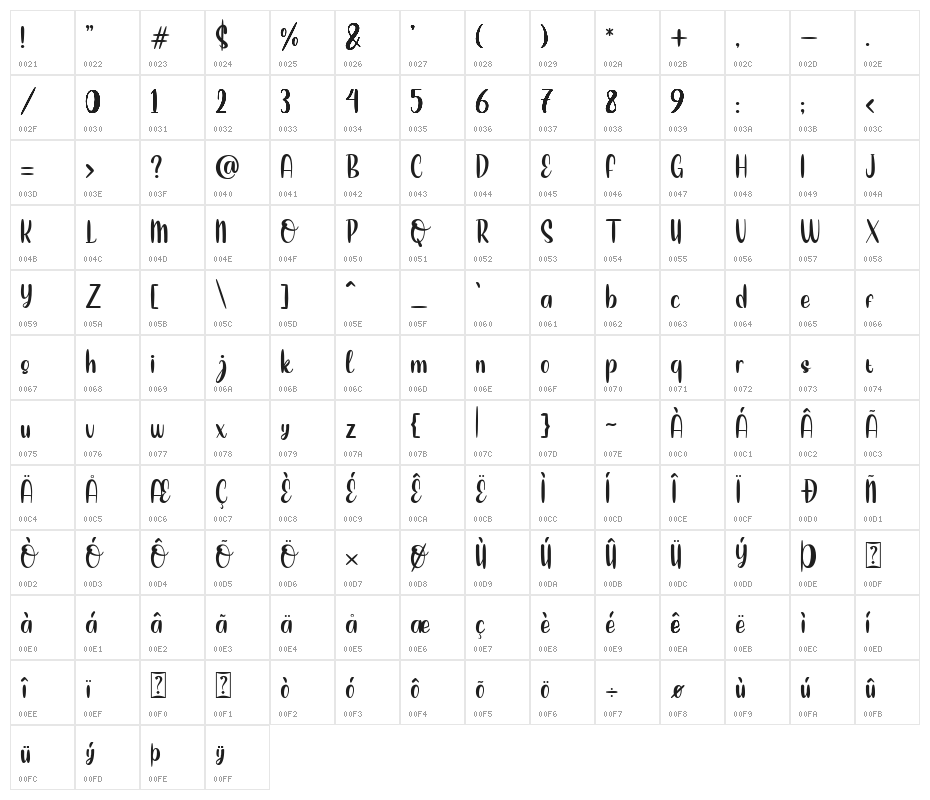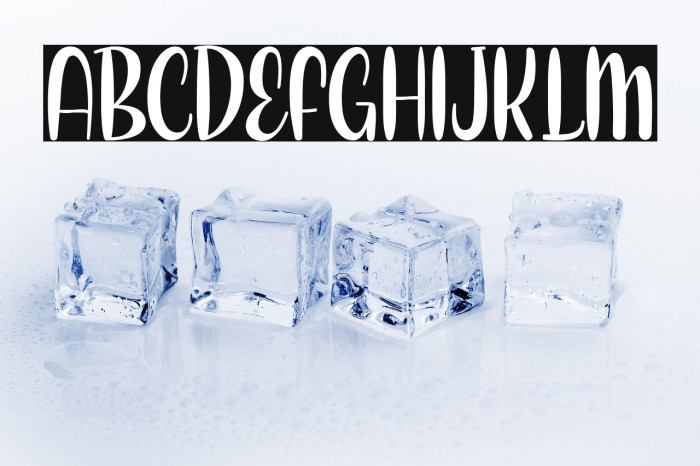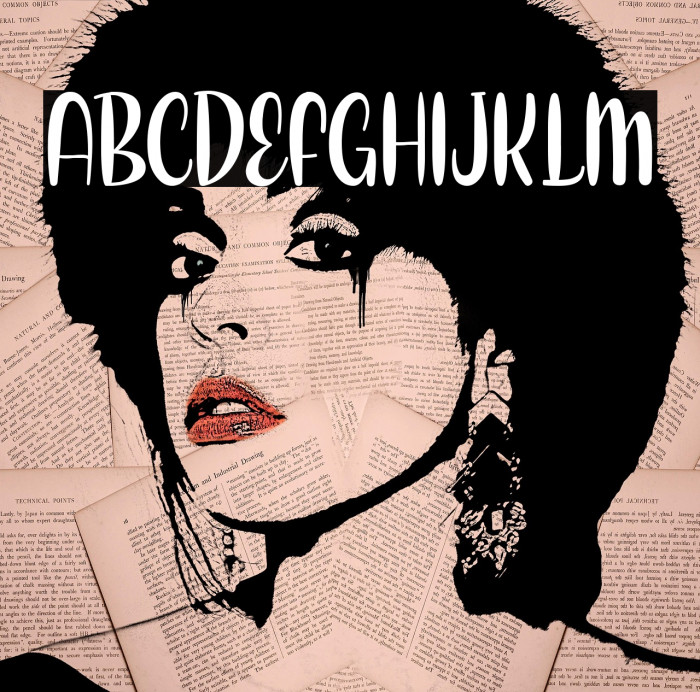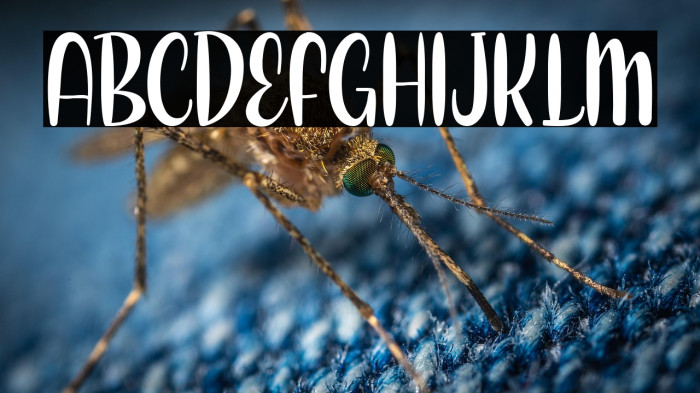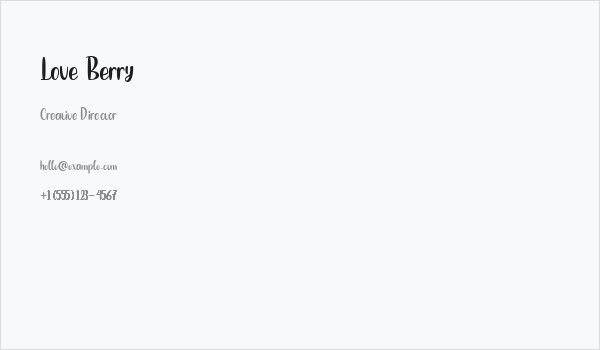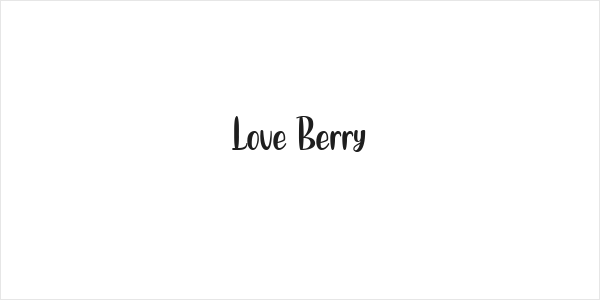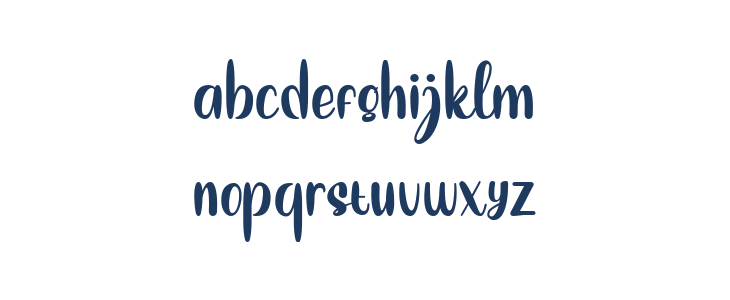
Love Berry Font
Love Berry Description
This font features a playful and whimsical style with a handwritten appearance. The letters are bold and rounded, giving them a friendly and approachable look. The uppercase letters are slightly taller than the lowercase, maintaining a consistent width throughout. The strokes are smooth and fluid, with a slight slant that adds to the casual feel. The numbers are equally playful, matching the style of the letters. Special characters are included, maintaining the same rounded and bold characteristics. This font is ideal for projects that require a fun and informal touch.
| Use Case | Headlines, Logos, Social media graphics |
| Proposed Projects | Perfect for greeting cards, children's books, playful branding, and social media graphics. |